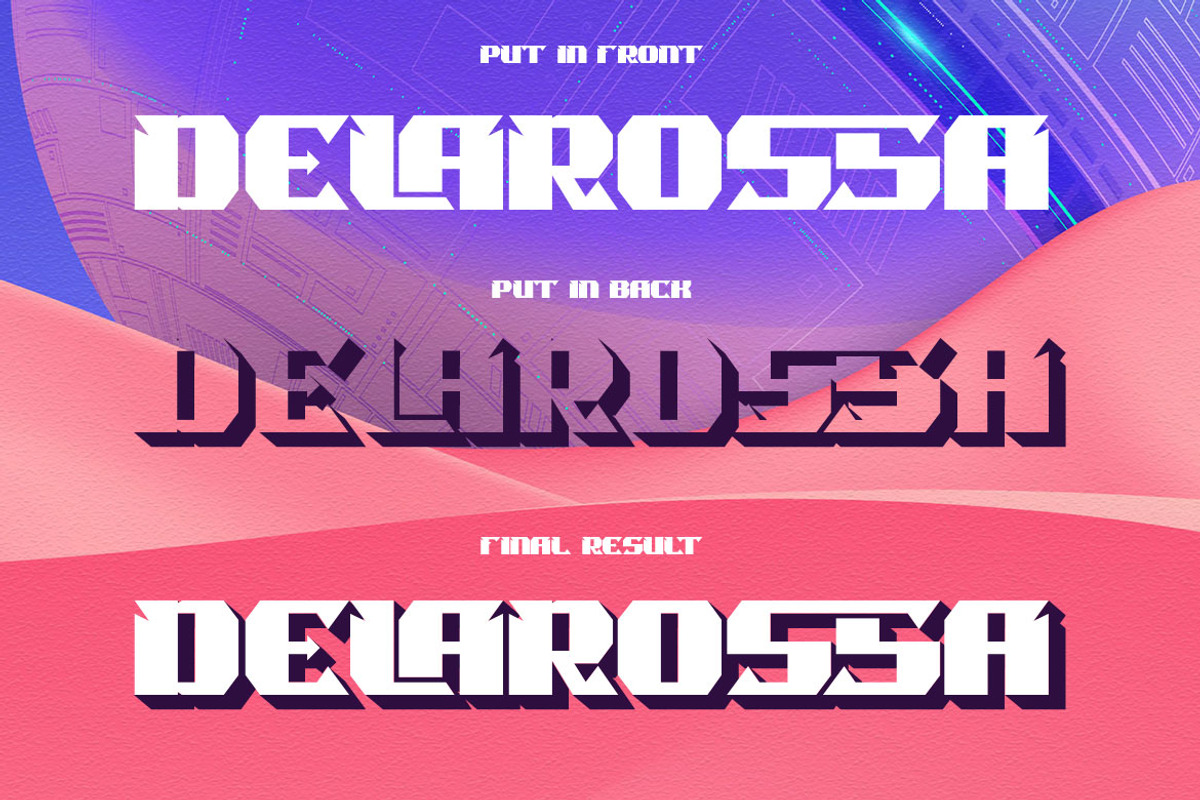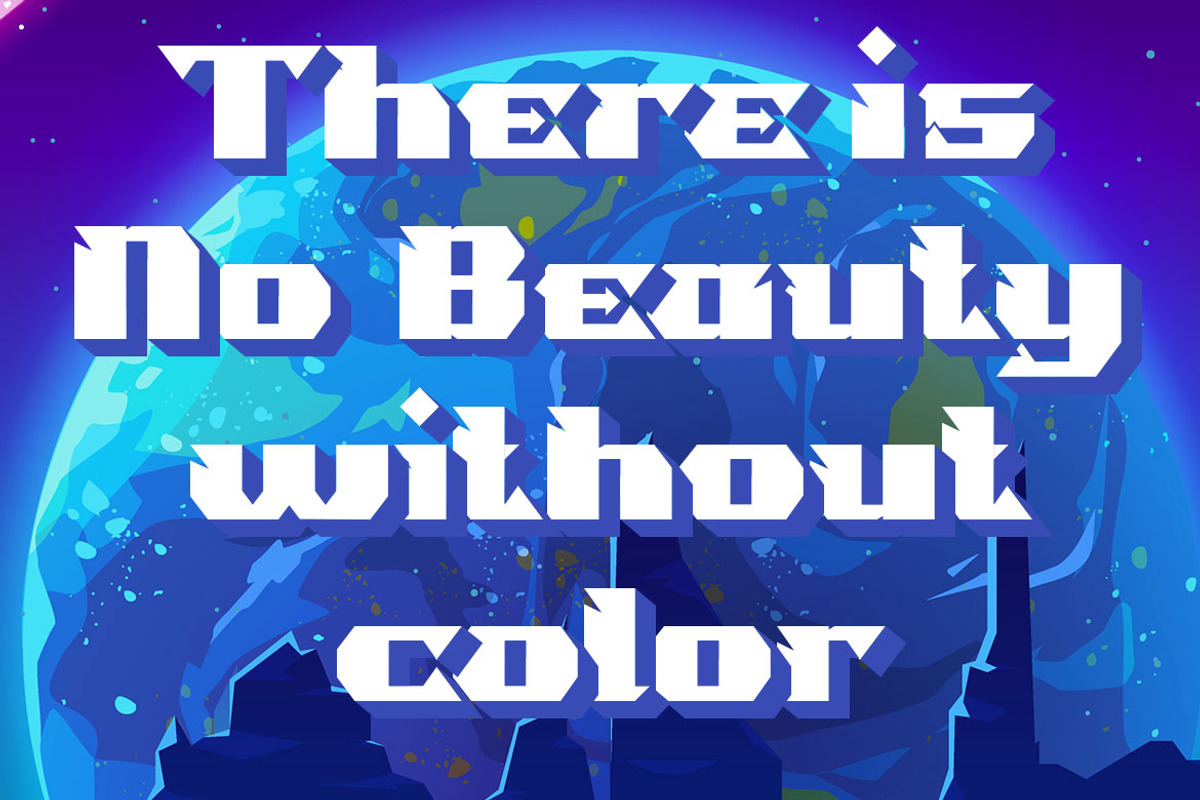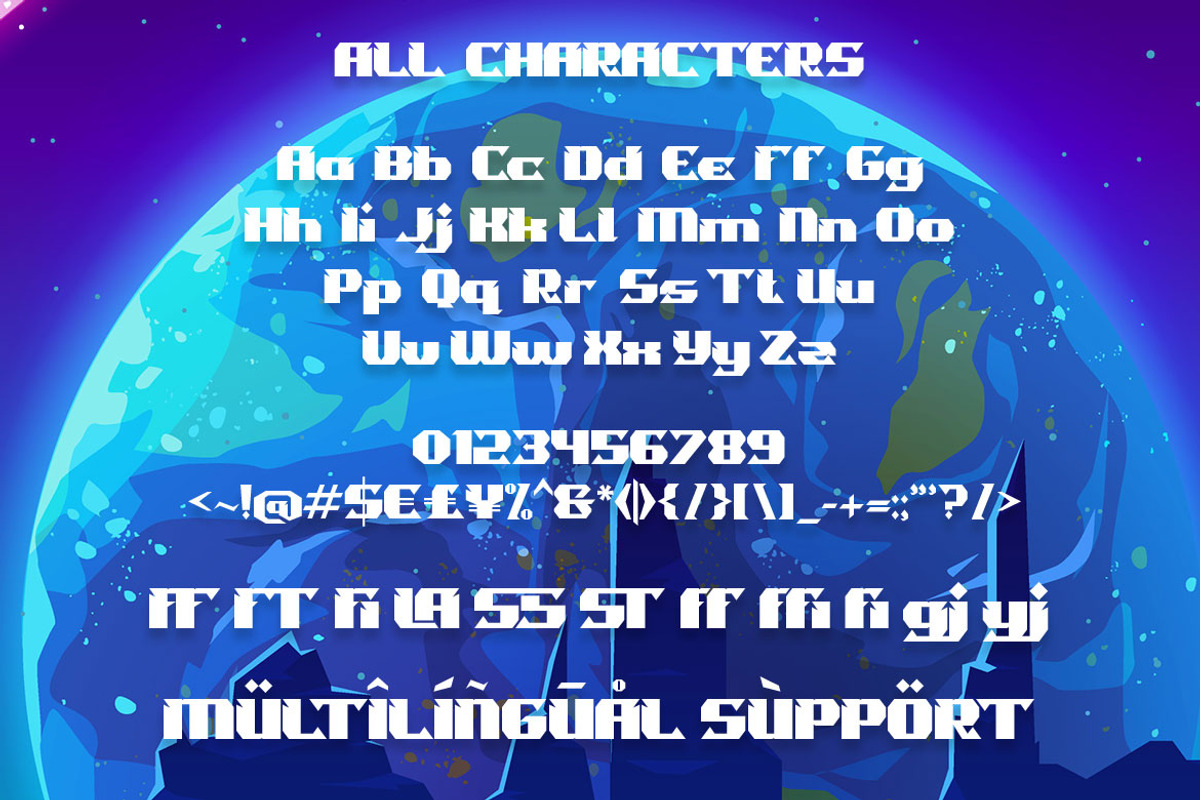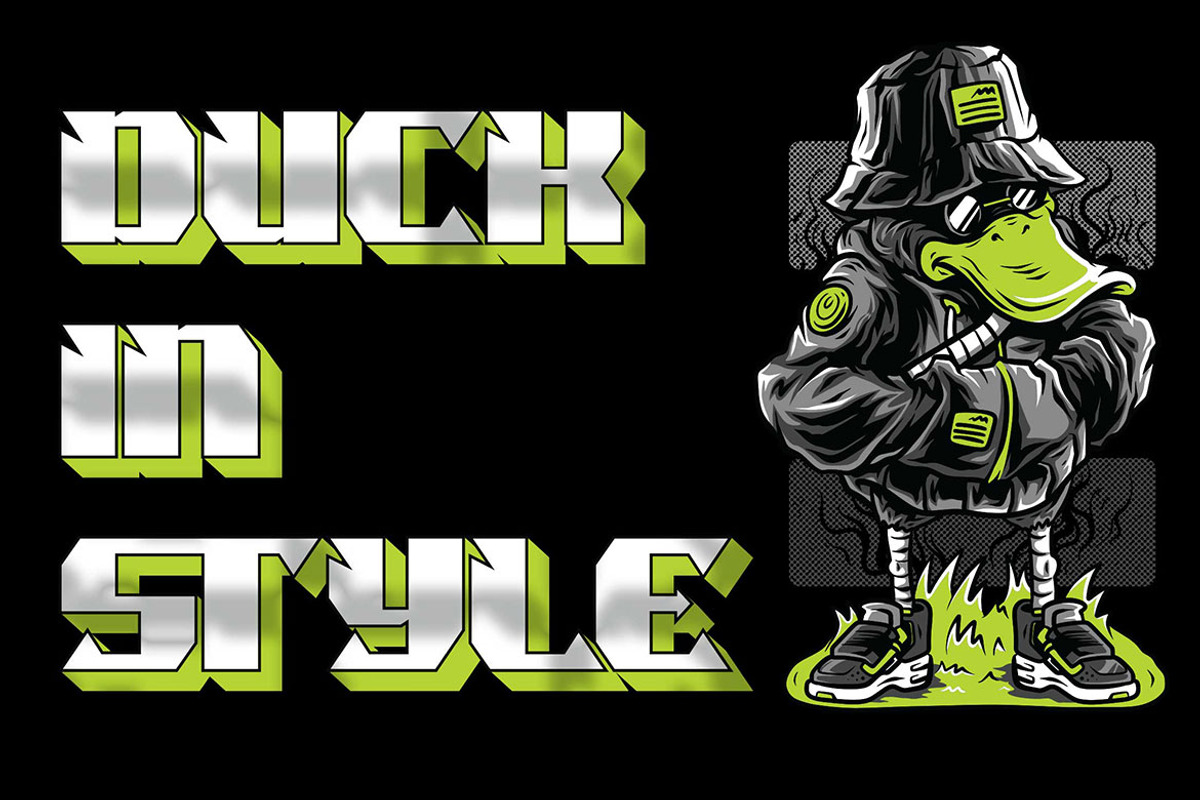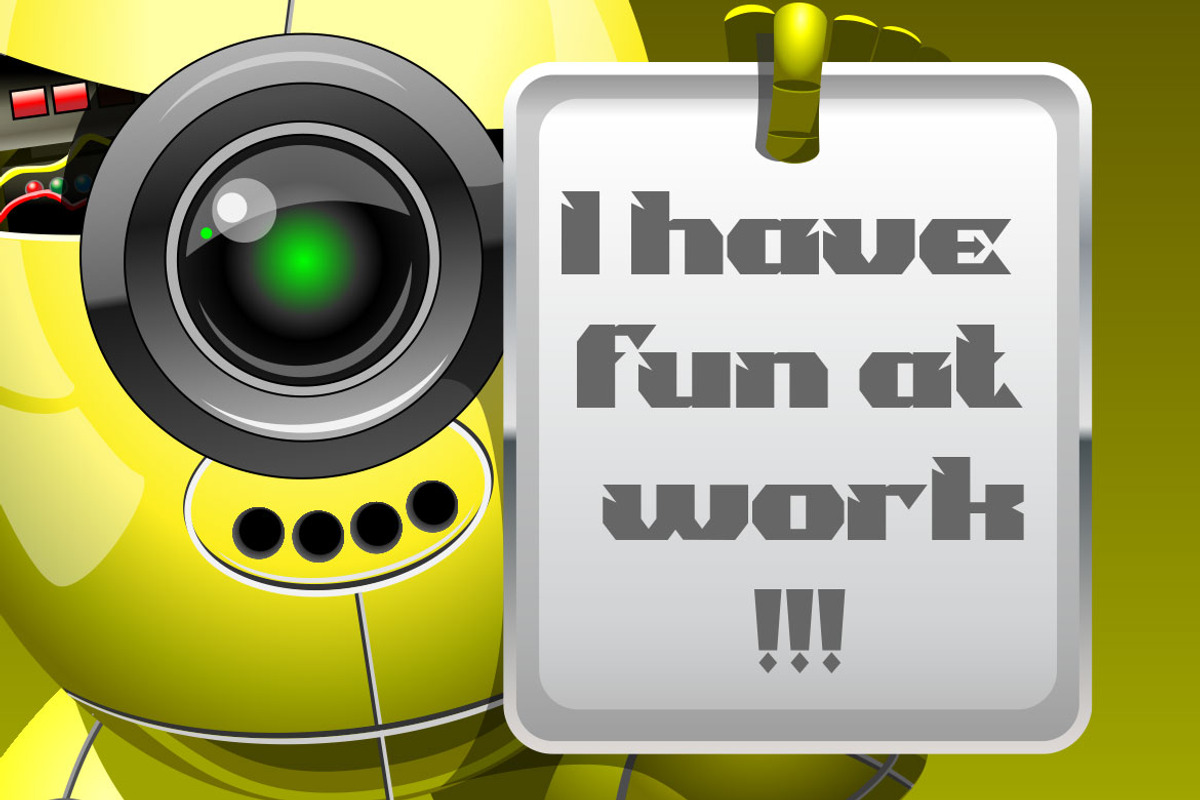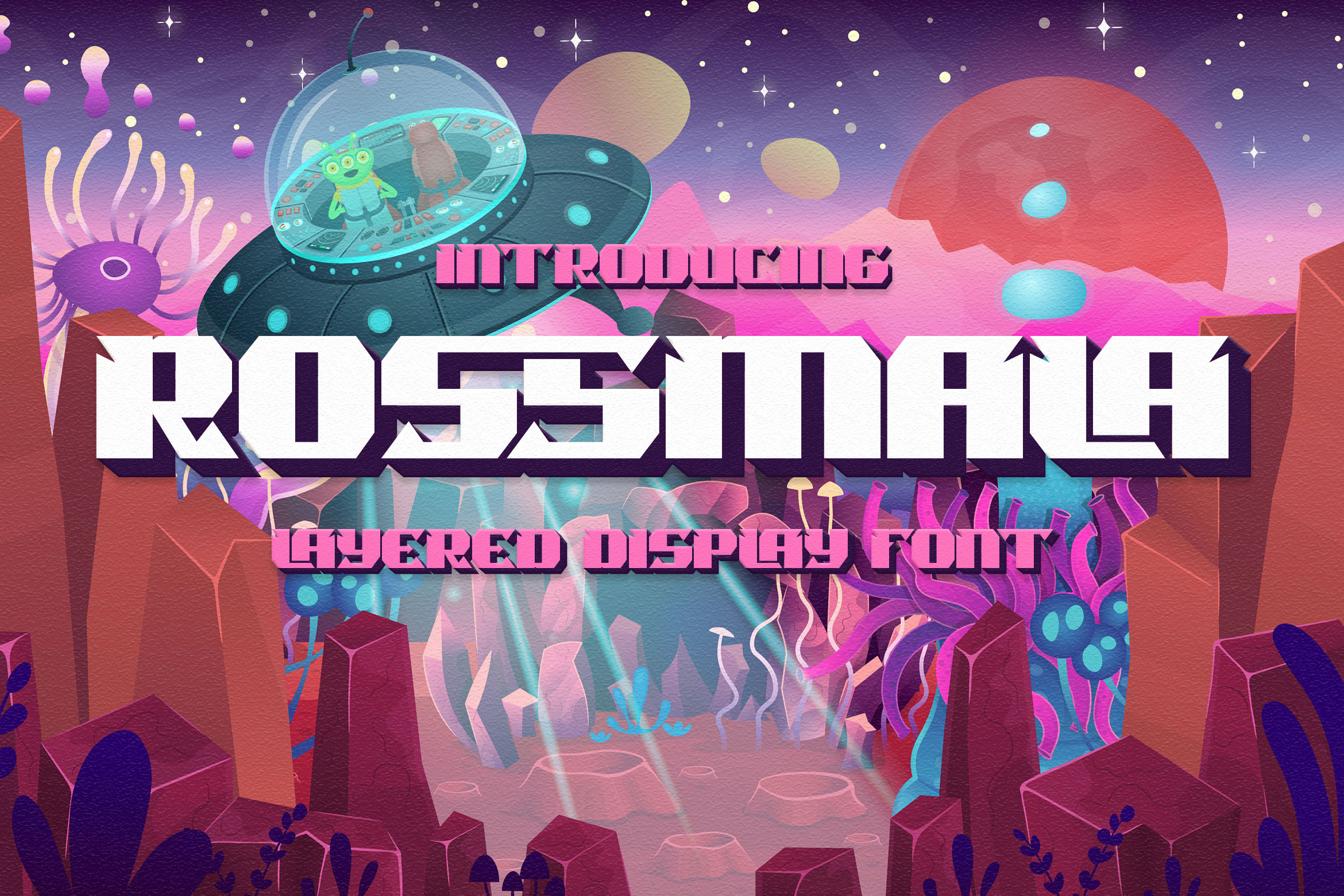
Rossmala | Layered Display Font
Introducing of our new product the name is Rossmala.Rossmala is modern and playful font with extrude font, this font is a fun theme very good for crafting, cutting, decoration, banner, logos, poster, food, branding, quotes, valentine, easter, summer, etc.